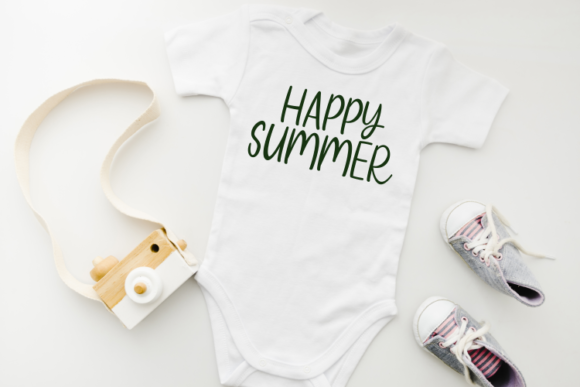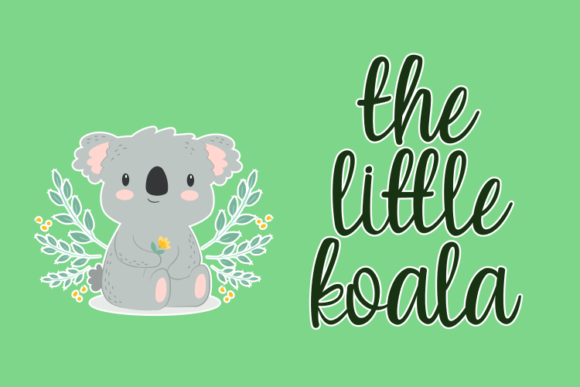
Summer Yesterday Font
db-ku.com - Script & Handwritten -- Summer Yesterday is an exquisite handwritten font, masterfully designed to become a true favorite. It maintains its classy calligraphic influences while feeling contemporary and fresh. Fall in love with it and bring your projects to the highest levels!